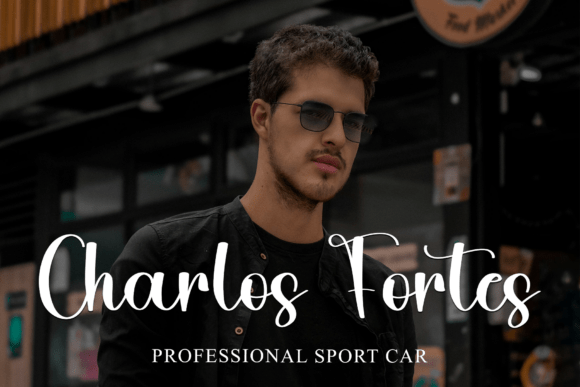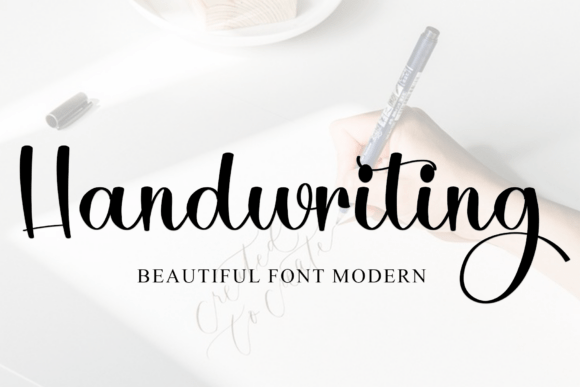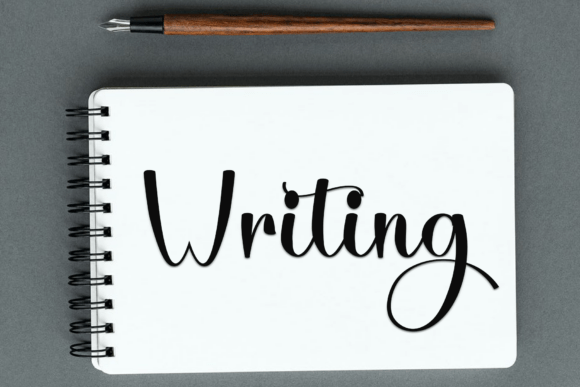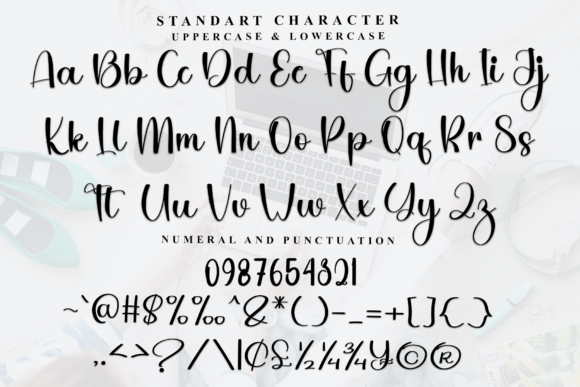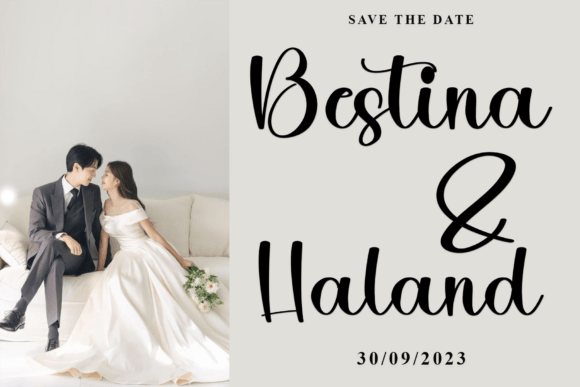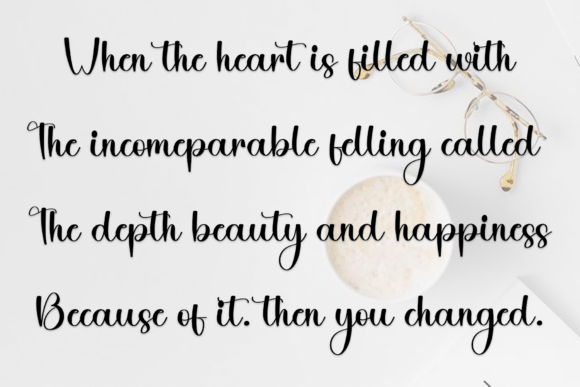
Introduction to Dairy Wedding Font
Dairy Wedding is a festive and merry typeface that captures the spirit of the holiday season.
Dairy Wedding Font offers exceptional quality and versatility, making it a valuable addition to your design toolkit. Whether you’re creating for personal projects or commercial use, Dairy Wedding Font delivers professional results.